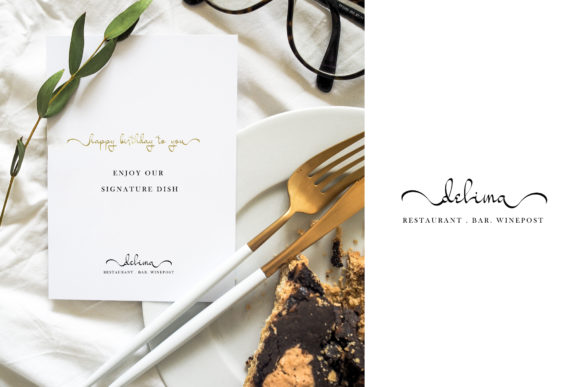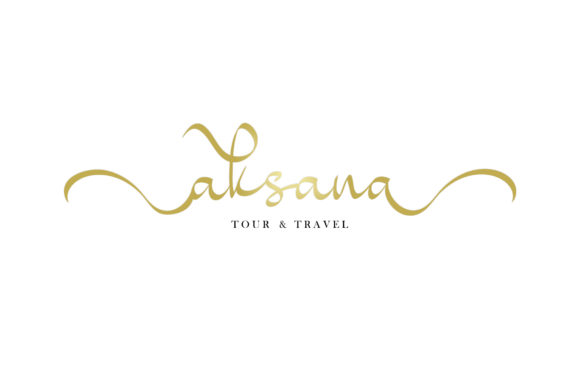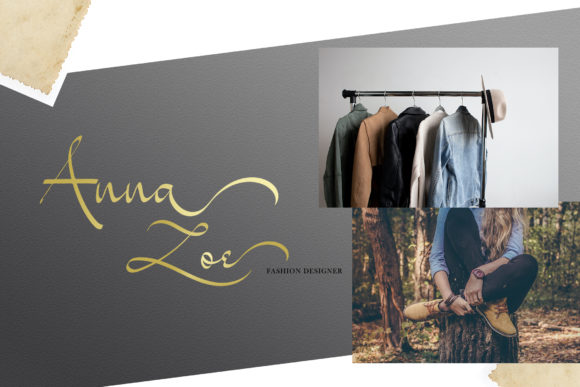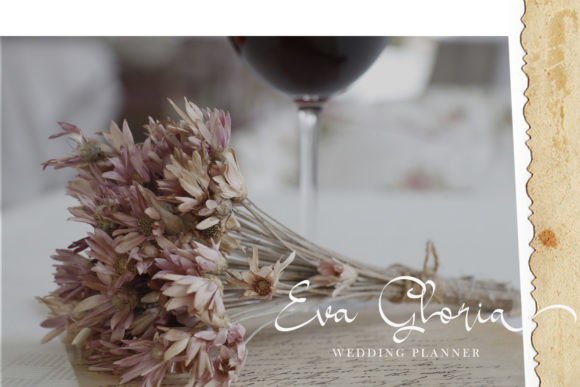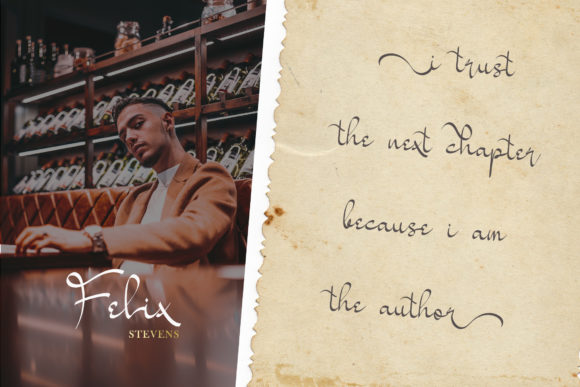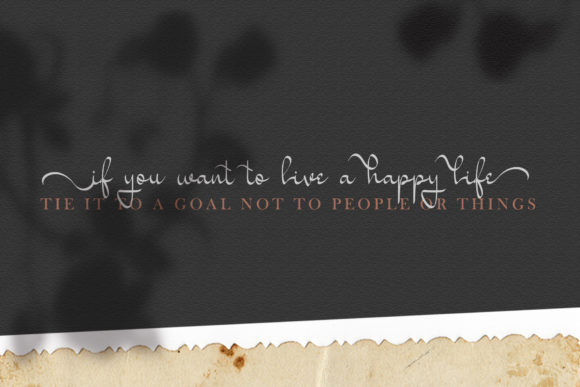
Introduction to Kayama Font
As a designer, there’s nothing quite like the thrill of creating something from scratch – the blank canvas, the endless possibilities, and the joy of watching a concept come to life. For many of us, it’s the little details that make all the difference, and that’s where fonts like Kayama Font truly shine. This elegant and flowing script font is a design resource that can elevate even the simplest of ideas into a stunning work of art.
With its varying baseline, smooth lines, gorgeous glyphs, and stunning alternates, Kayama Font is the perfect addition to any creative project. Whether you’re designing wedding invitations, thank you cards, or logos, this high-quality font is sure to add a touch of sophistication and elegance. And the best part? You can download Kayama Font for free, making it an accessible design resource for designers of all levels.
Key Features of Kayama Font
- Includes a range of unique characters and glyphs, making it an excellent design resource for projects requiring a distinctive look.
Honest Review: Kayama Font
I recently stumbled upon the Kayama Font and was pleasantly surprised by its high quality and versatility. As a designer, I’m always on the lookout for new design resources that can elevate my creative projects.
One of the standout features of the Kayama Font is its transparent background, which makes it perfect for use on a variety of backgrounds and designs. The font is also incredibly easy to customize, allowing me to tweak the style to fit my specific needs.
- High-quality design that looks great on any background
- Transparent background makes it easy to integrate into any design
- Easy to customize and adjust to fit specific design needs
- May not be suitable for very large-scale designs or publications
- Some users may find the font’s style too minimalist or subtle
Overall, I’m impressed with the Kayama Font and would definitely recommend it to fellow designers looking for a reliable and versatile design resource. With its free download and transparent background, it’s a great addition to any design toolkit.
Tips for Getting the Most Out of Kayama Font
For the best results, use the Kayama Font in conjunction with other high-quality design elements. Experiment with different font sizes, colors, and combinations to find the perfect look for your creative project.
The Kayama Font is a versatile design resource that can be used in a variety of creative projects, including logos, brochures, business cards, and website design. Its transparent background makes it easy to combine with other design elements to create a unique and visually appealing design.